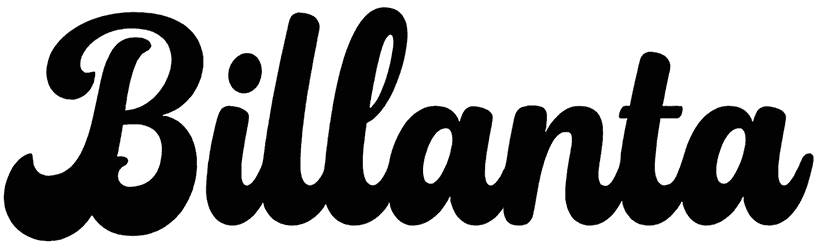
Billanta Font
Having a situation meeting your project deadlines soon? Well, quite safe to state that there is a wonder that spread the news about your upcoming design, like it’s no big deal, a baseball font with a full alphabet.
There is nothing better than this old school font named Billanta, naturally hooked up. This artwork would push you to satisfy a craving. Set it on magazine covers, albums, greeting cards, and invitations to see how it sticks out.